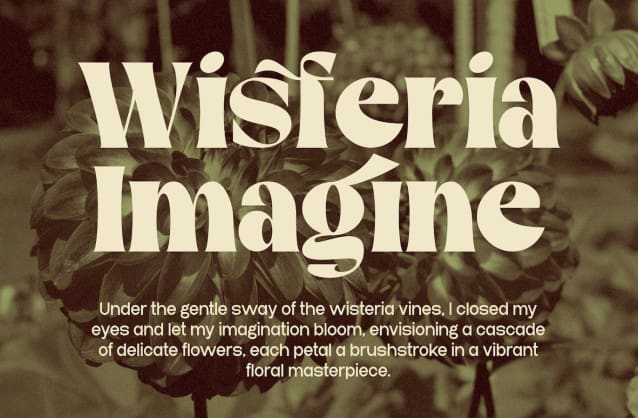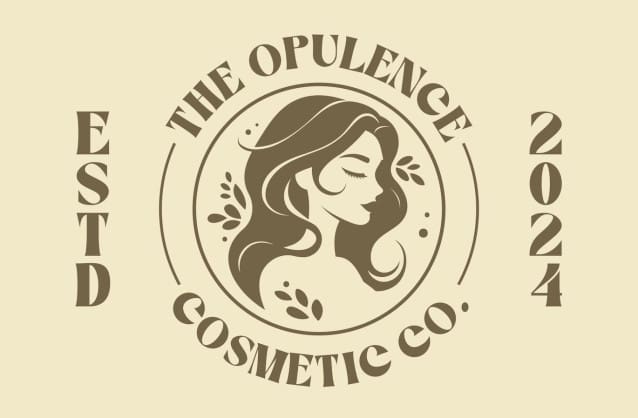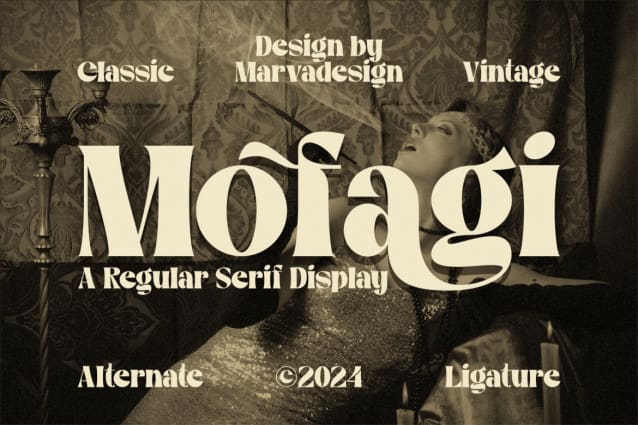
Mofagi Font
Mofagi Font – A Classic Serif Display Font, an authentic display font. The font is suitable for all branding projects like Logo, Template Design, Products and many more. It is exceptional in a wide range of contexts